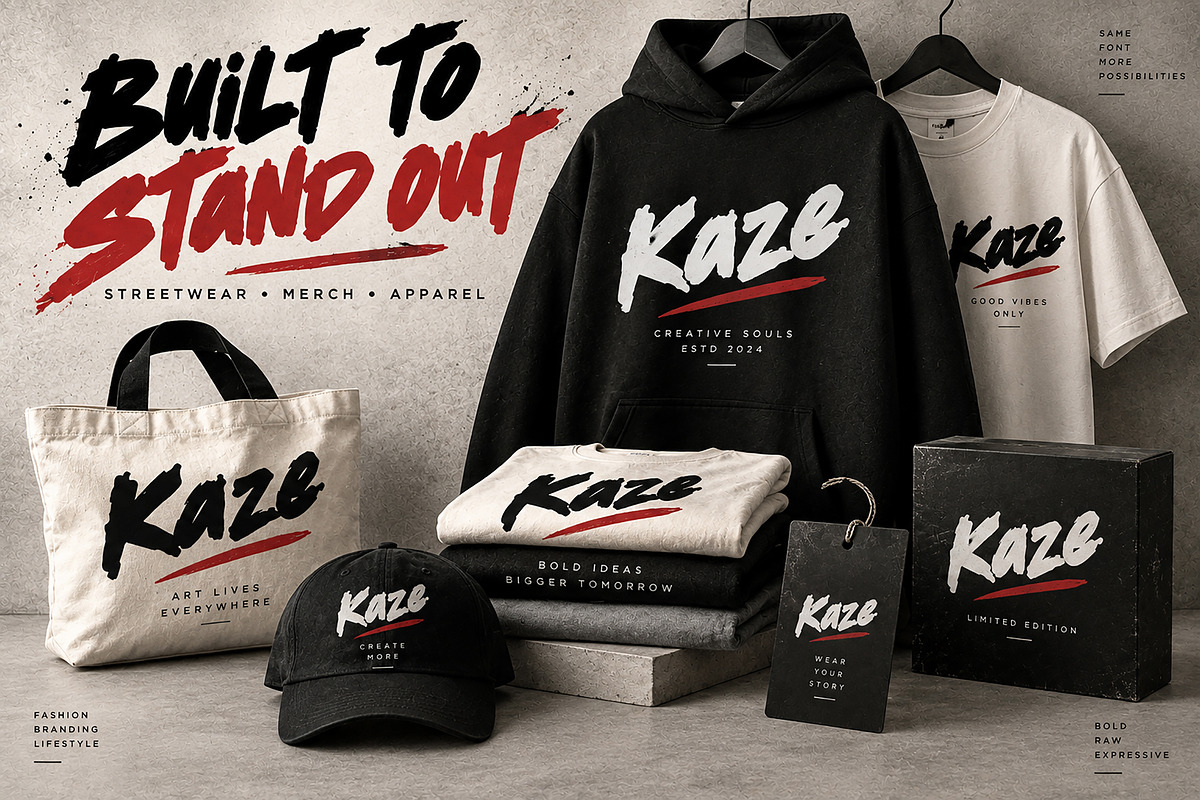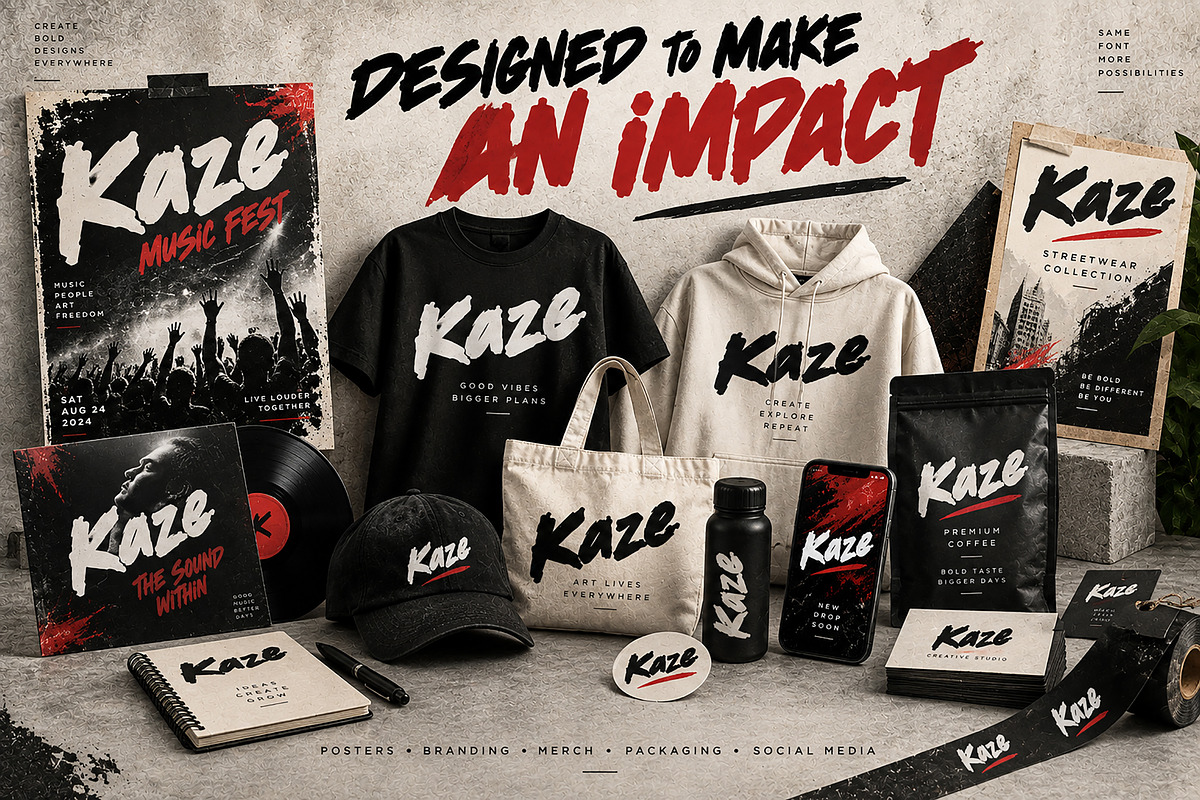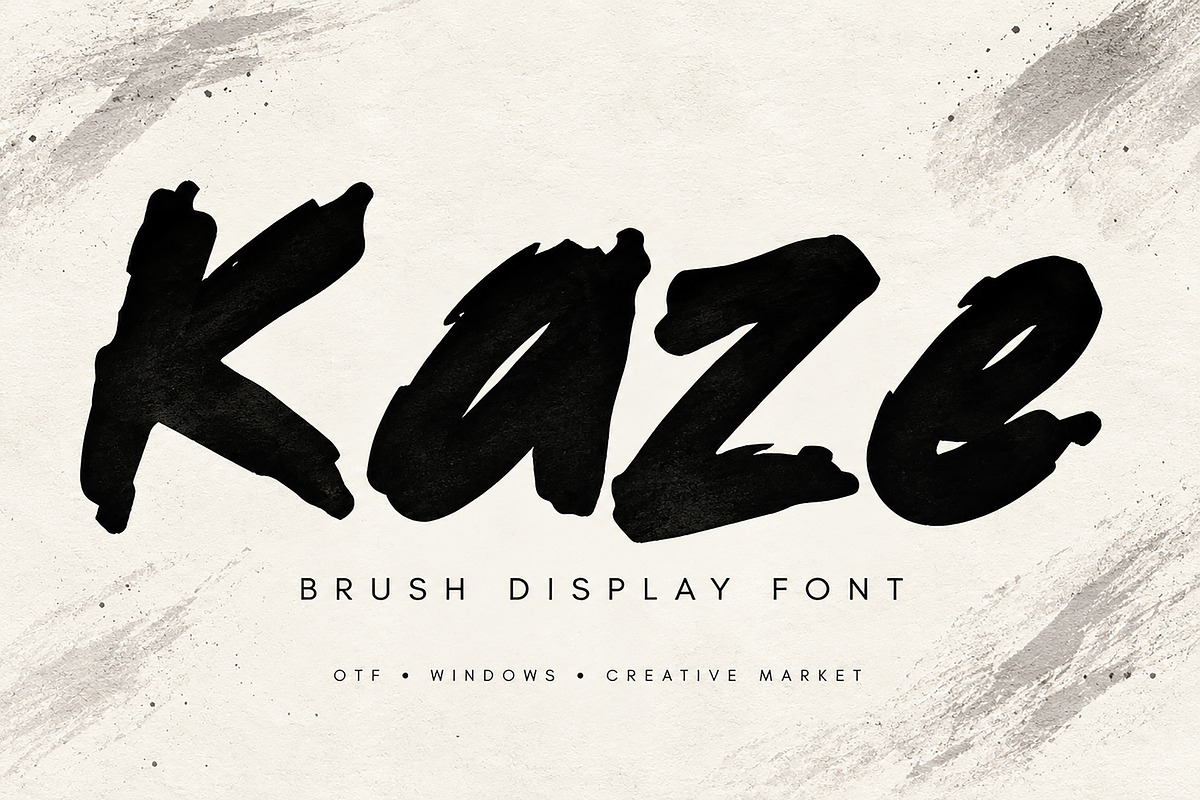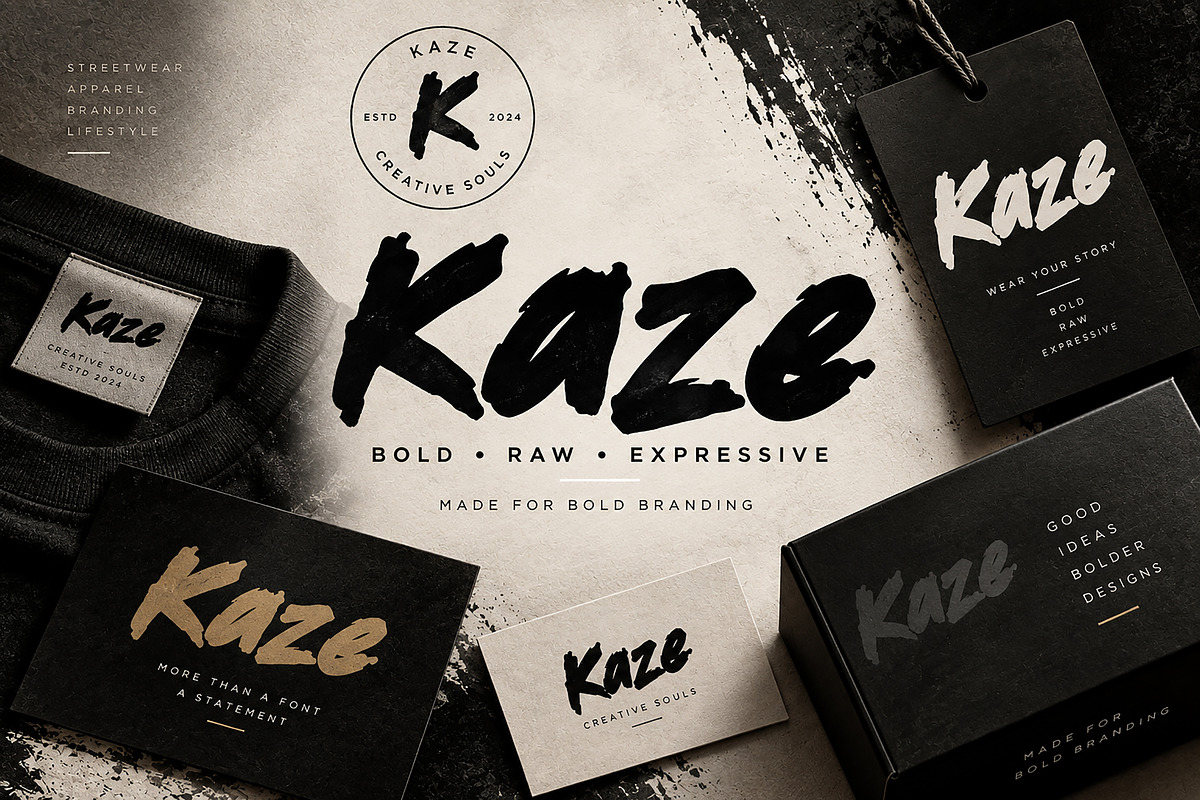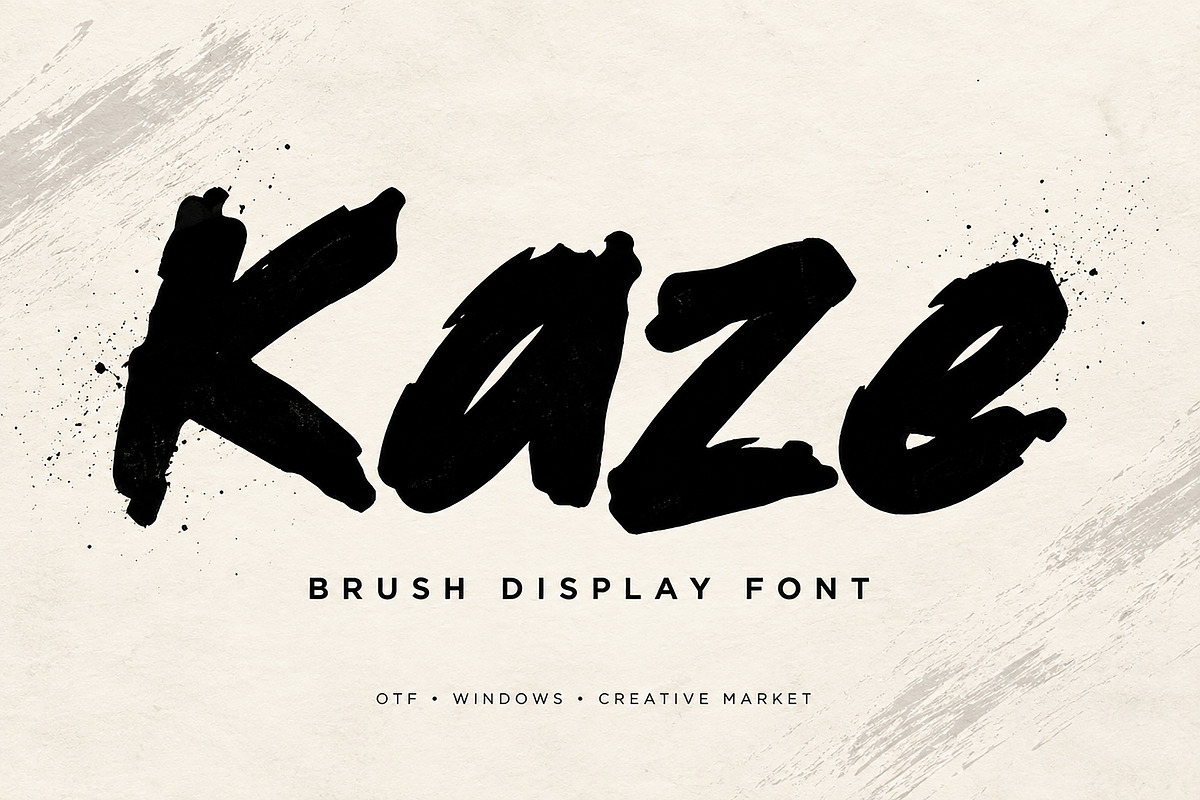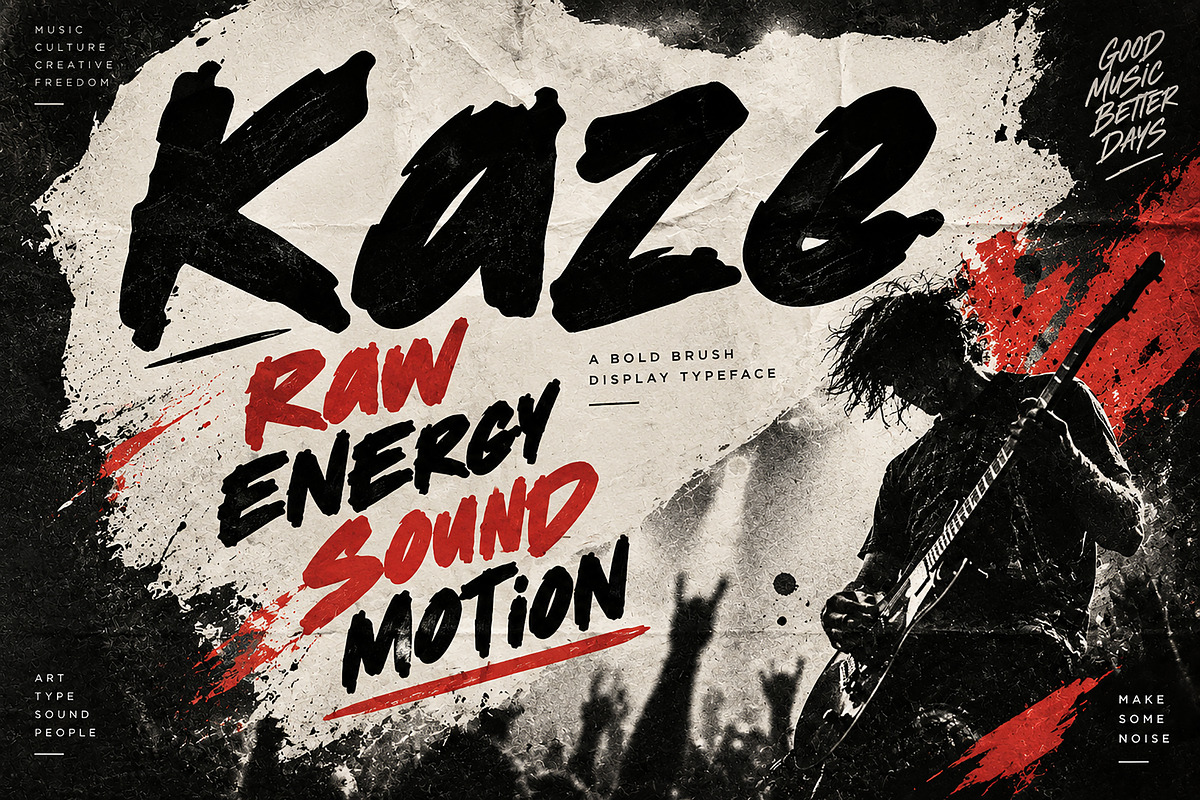
Kaze
Kaze – Bold Brush Display Font
Make your designs stand out with Kaze, a bold and expressive brush display font created for designers who want a strong handmade and energetic visual impact.
Kaze features powerful brush strokes, organic edges, natural ink texture, and an authentic hand-painted character. Its raw and dynamic appearance makes it a great choice for designs that need personality, movement, and a distinctive creative style.
Perfect for creating eye-catching logos, branding, posters, album covers, music artwork, streetwear designs, T-shirts, apparel, merchandise, packaging, labels, stickers, social media graphics, event flyers, and more.
Whether you're working on a modern streetwear identity, an alternative music project, a bold promotional campaign, or creative merchandise, Kaze adds an authentic brush-crafted feel to your typography.
Logo & Brand Identity
Streetwear & Apparel
T-Shirt Designs
Posters & Flyers
Music & Album Artwork
Packaging & Labels
Stickers
Event Designs
Creative Advertising
Print & Digital Projects
Bold Brush Display Style
Hand-Painted Appearance
Raw & Expressive Character
Organic Brush Strokes
Strong Visual Impact
Perfect for Large Display Typography
Versatile for Print & Digital Design
Kaze is designed to bring a bold, raw, and expressive personality to your creative projects.
Create bold. Stay expressive. Make an impact with Kaze.